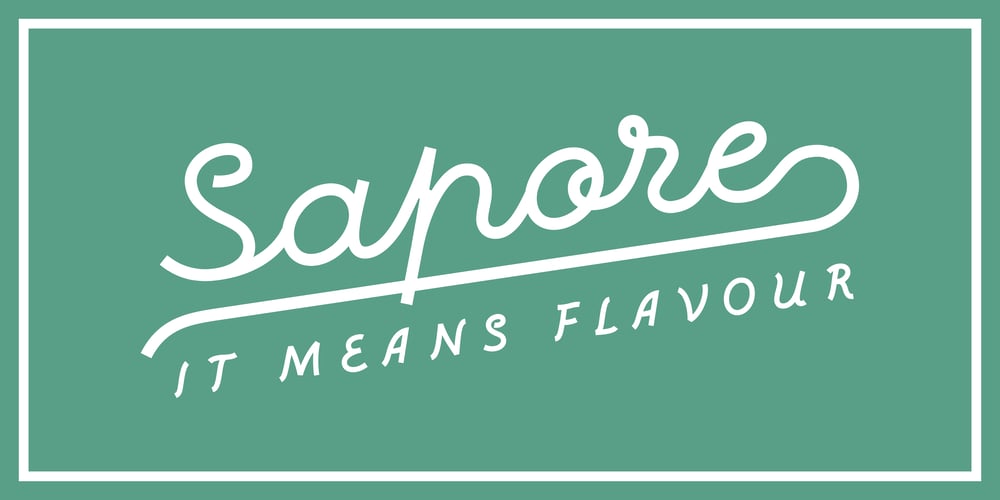
Sapore
Sapore font
Sapore Font Family was designed by Andrea Carrer and published by Fonderia Serena. Sapore contains 8 styles and family package options. Sapore is a monoline script font family inspired by the elegant handmade signs in the beautiful city of Venice, Italy, where I work and live. Many of these signs were made at the beginning of the 20th century by skilful craftsmen and artists, carrying that distinct vintage Italian flavour, and this is why I named the font Sapore, which means precisely flavour (also, one of the signs is from a pastry shop that makes the most delicious things). The design takes this retro vibe into the 21st century, making it up-to-date and fresh, while keeping it authentic.It is a script font, but I added some stand alone capitals that you can use in all caps words and texts effortlessly, as the open type code is taking care of using the right set of letters at the right time, I could have made two separate fonts, but I wanted to give you the best value I could and ease of use.Make sure contextual alternates are always on!There are also swashes, alternate styles, stylistic sets, small caps, 2 figure sets and decorative elements, all accessible through open type. I think the font is particularly suited for display use, as in logos, packaging design, branding, but it is readable enough for small text blocks.You can access the non-linking caps by clicking on the discretionary ligatures button.You can access the loopy caps by clicking on the titling alternates button.The main version has straight terminals but I included a round version.Hope you like it!